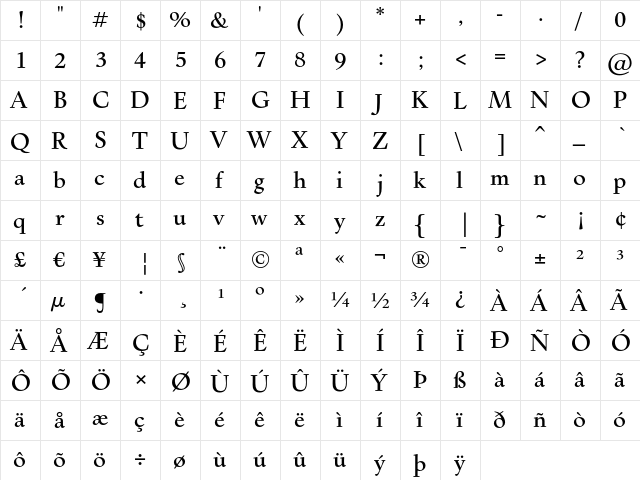
Kennedy Medium
Design Context for Kennedy Typeface
Kennedy takes a measured approach to typography — its balanced proportions and neutral character make it a reliable workhorse for both digital and print work.
Pro Tip: Use Kennedy in both headline and body roles to test its range before committing to a single application.